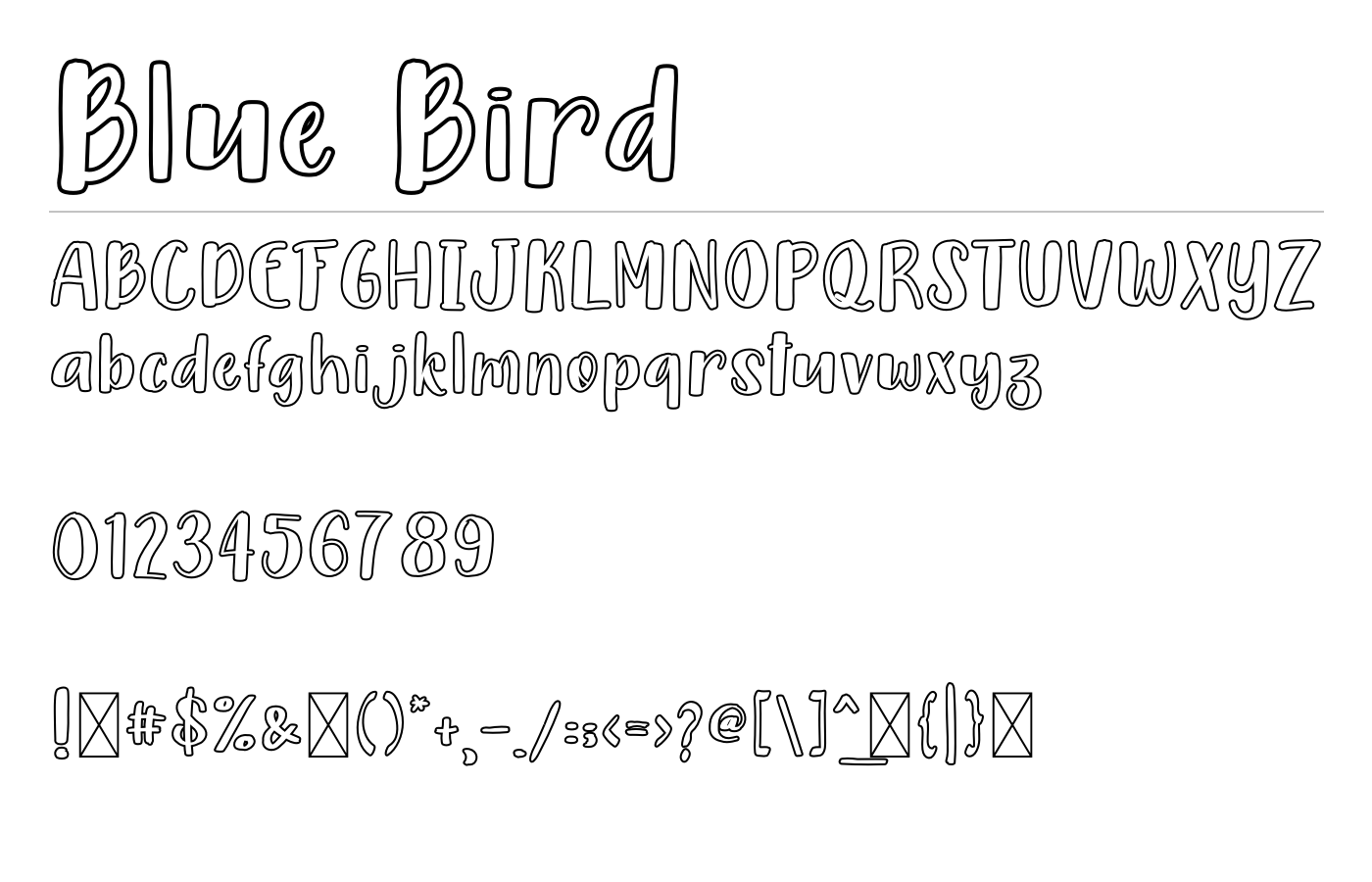
Blue Bird is a playful, hand-drawn outlined font with a casual, friendly vibe. Its tall, slightly irregular letterforms and whimsical curves make it ideal for fun, informal designs such as children's books, greeting cards, or creative branding seeking a charming and approachable look. This font shines in display use where personality and a lighthearted tone are desired.
Blue Bird Font
About Blue Bird Font